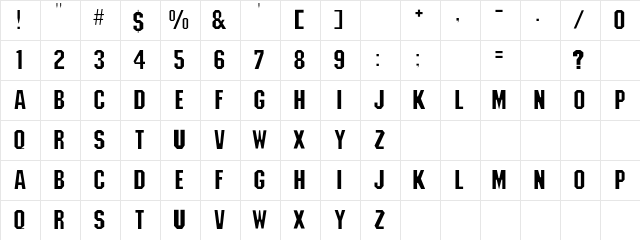
Complete Strathmelli-Lig Regular glyph index. Displaying only characters natively supported by Strathmelli-Lig Regular font.
Strathmelli-Lig is a composed and adaptable typeface that performs quietly and consistently across a wide range of design contexts.